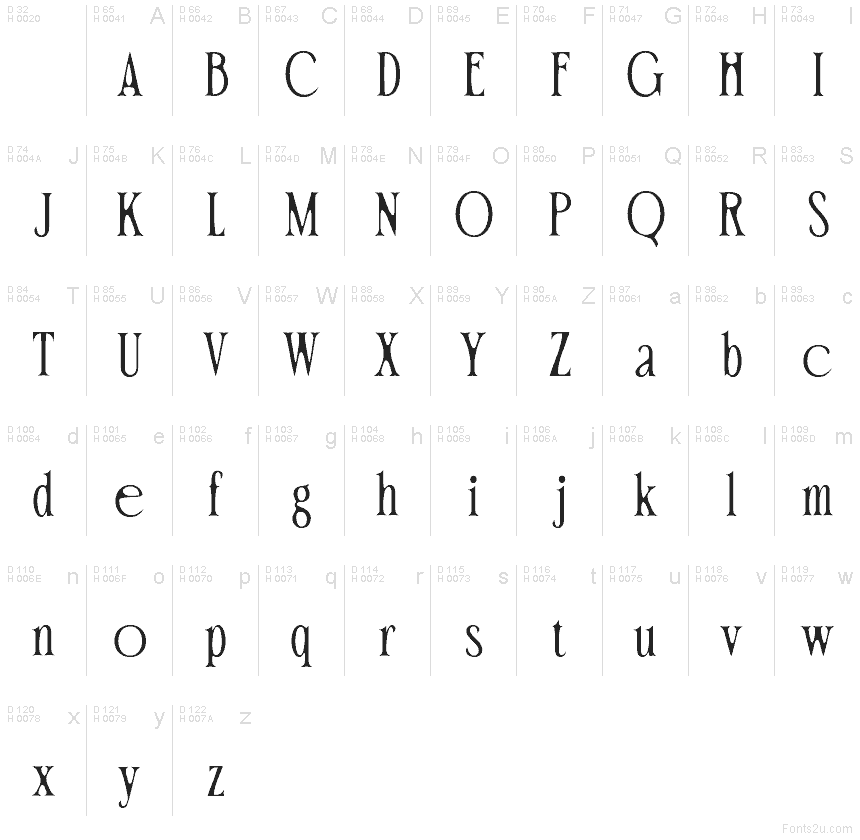
CSMaliciousDrawn-Regular Demo
CS Malicious Drawn font by Craft Supply Co. is a free condensed hand-drawn serif display font from the CS Malicious family. Built to solve the “narrow space, big drama” problem, it packs high-contrast strokes and tapered, knife-like serifs into a tight rhythm without losing clarity. Slightly scuffed edges add an inky, tactile bite—elegant at first glance, then just a little dangerous.
Using CS Malicious Drawn, headlines snap into place on thriller book covers, fashion editorials, boutique packaging, film posters, event flyers, and dramatic website hero text. The condensed proportions let you say more without shrinking type, while the textured finish brings character that feels printed, not plastic. Pair this free font with a quiet grotesk sans for body copy, and give it a touch of tracking when set in all caps to let the sharp details breathe.
CS Malicious Drawn Demo